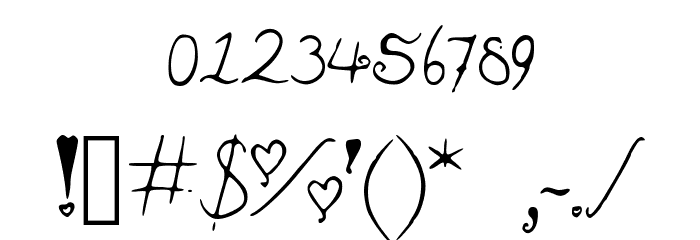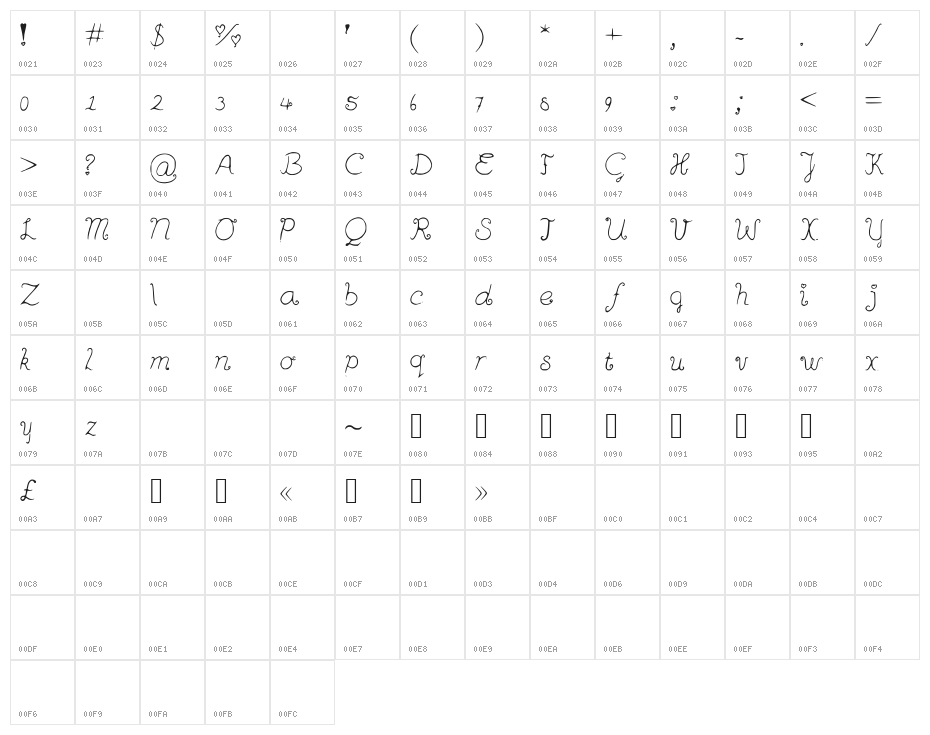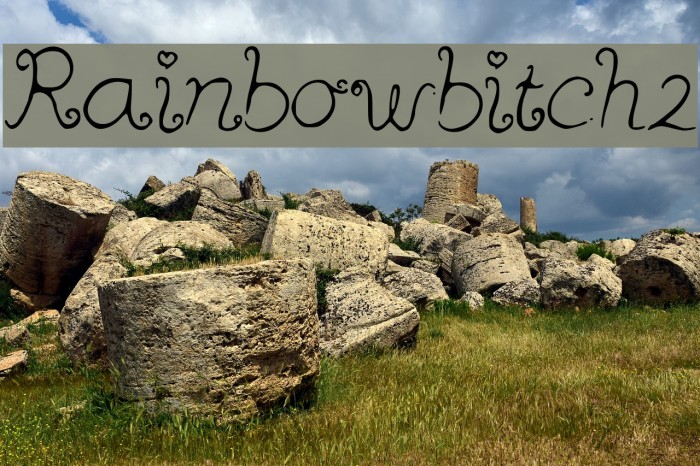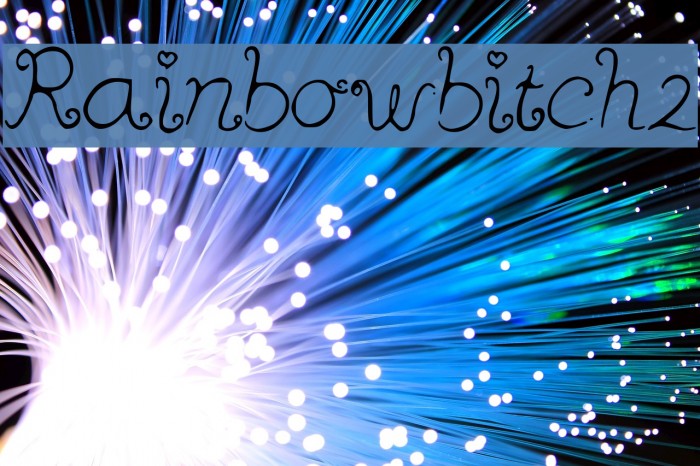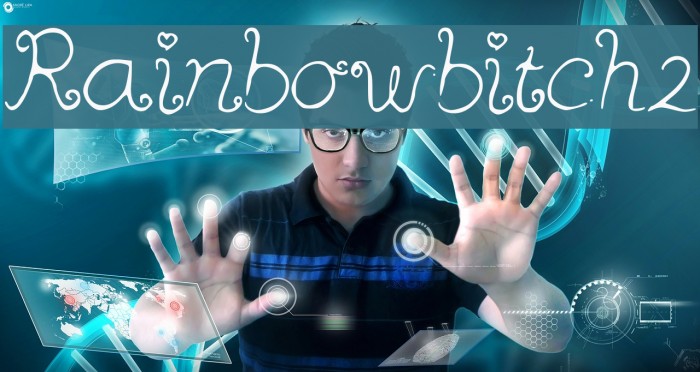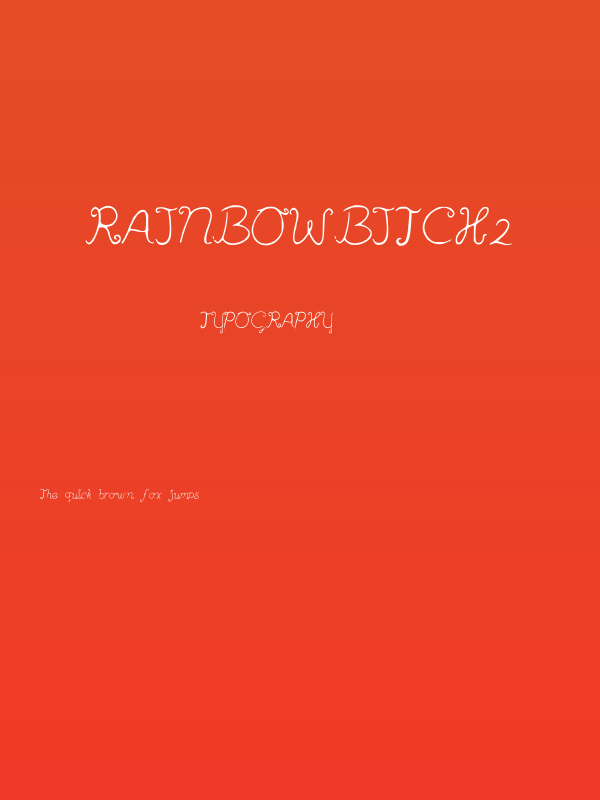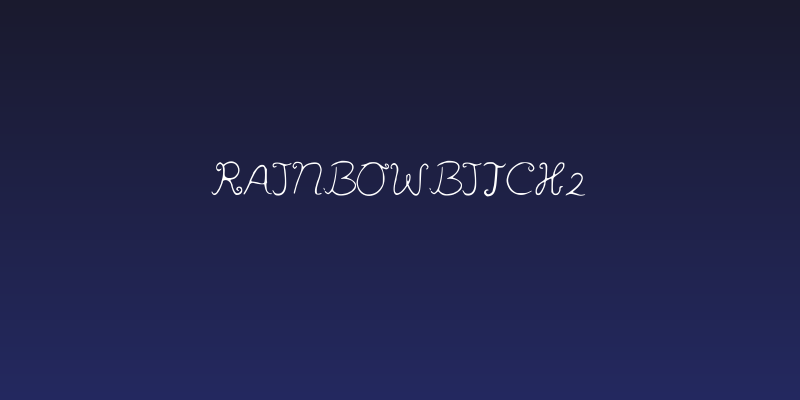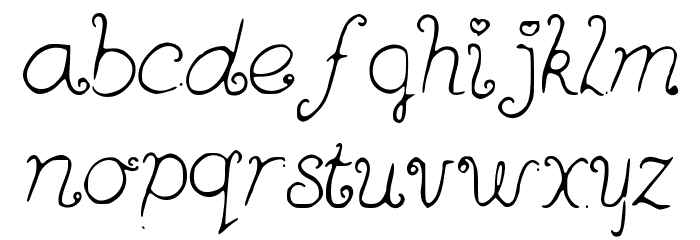
Rainbowbitch2 Font
Rainbowbitch2 Description
This whimsical and playful font features a unique blend of cursive and decorative elements. Each letter is adorned with small, heart-like embellishments, adding a touch of charm and personality. The strokes are fluid and slightly irregular, giving it a hand-drawn feel. The uppercase letters are tall and elegant, while the lowercase letters maintain a consistent style with a slight slant. Numbers and special characters follow the same decorative theme, making the font cohesive and visually appealing. The overall design is light-hearted and suitable for creative projects that require a touch of whimsy.